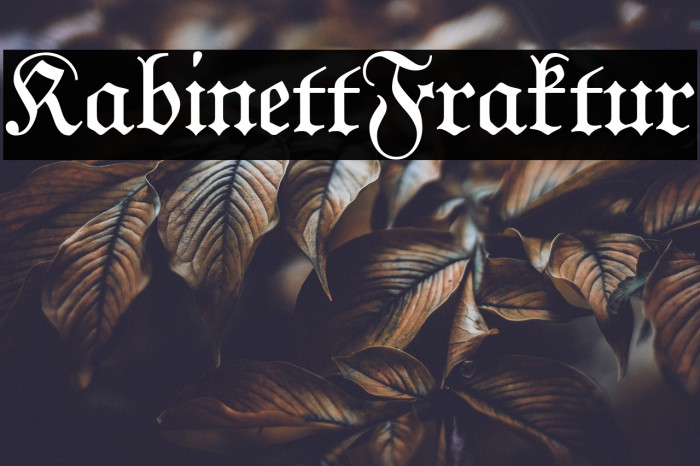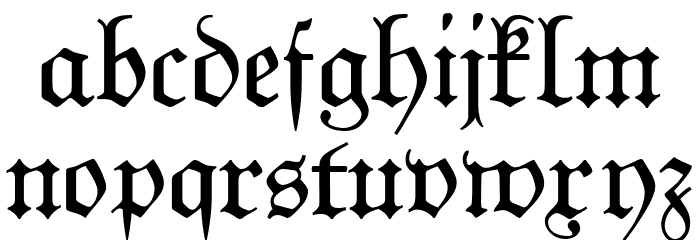
KabinettFraktur Font
KabinettFraktur Description
This font embodies the traditional elegance and intricate detailing of classic Blackletter styles. Each character is crafted with sharp, angular lines and ornate flourishes, reminiscent of medieval manuscripts and Gothic architecture. The uppercase letters are particularly elaborate, featuring bold strokes and decorative elements that enhance their visual impact. The lowercase letters maintain a consistent style, with a slightly more subdued ornamentation, ensuring readability while preserving the font's historical charm. The numerals and special characters are designed to complement the overall aesthetic, offering a cohesive and visually striking typeface.
A traditional Blackletter font with intricate detailing and bold, angular lines from Uncategorized fonts.
- Proposed Projects: Ideal for projects that require a historical or Gothic touch, such as book covers, posters, or branding for vintage-themed products.
- Overall Style: Vintage
- Use Case: Headlines, Logos, Decorative text